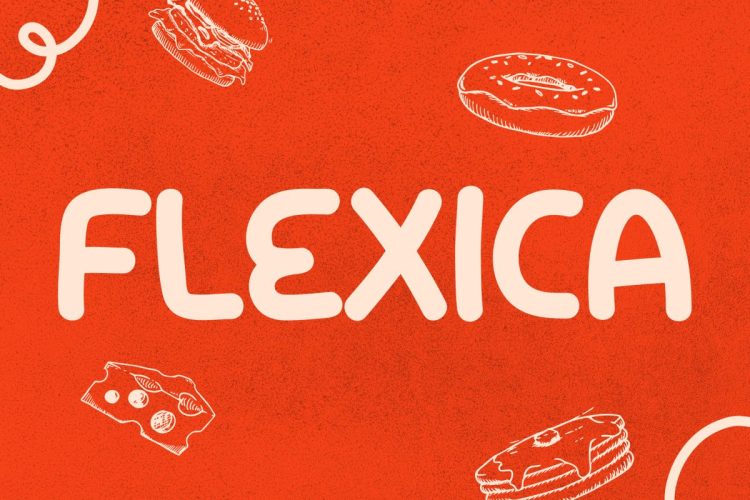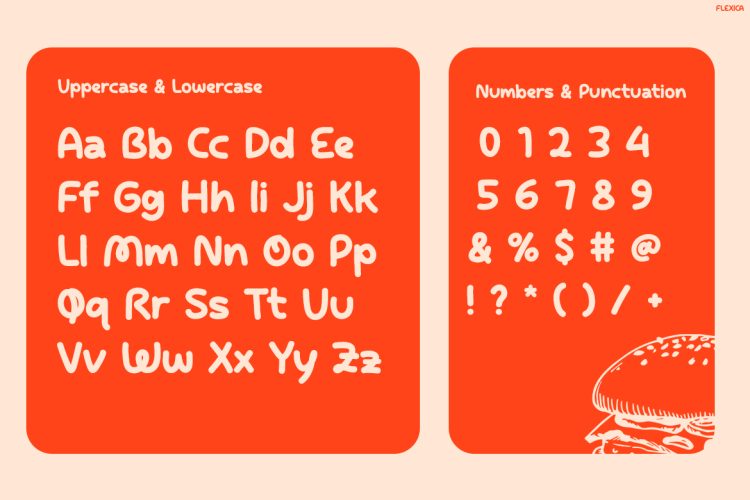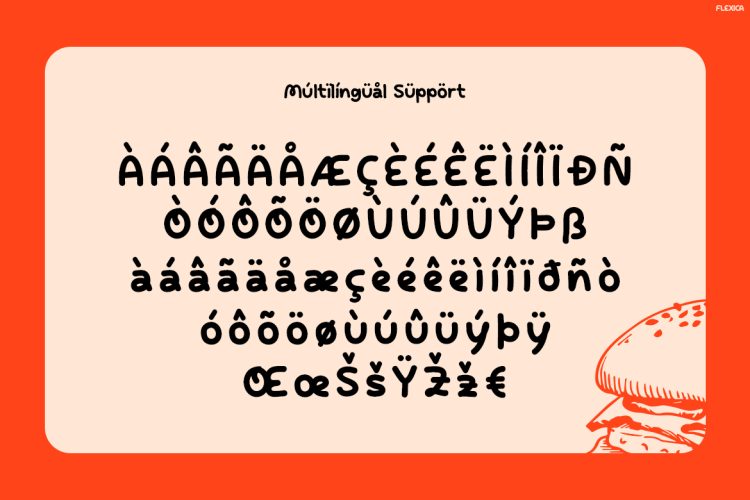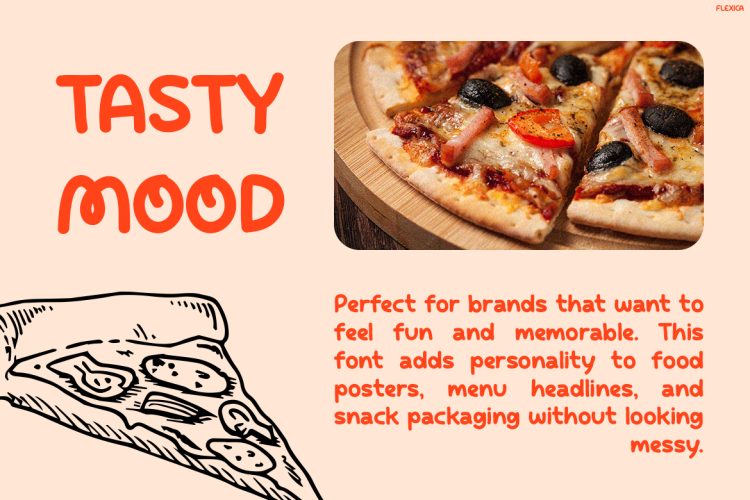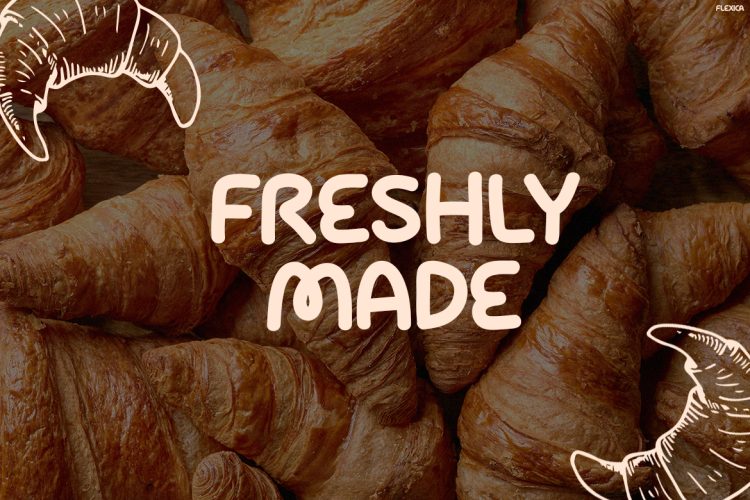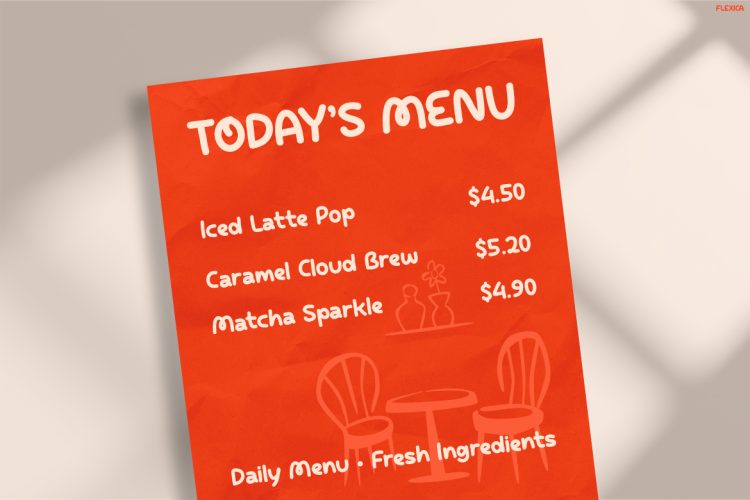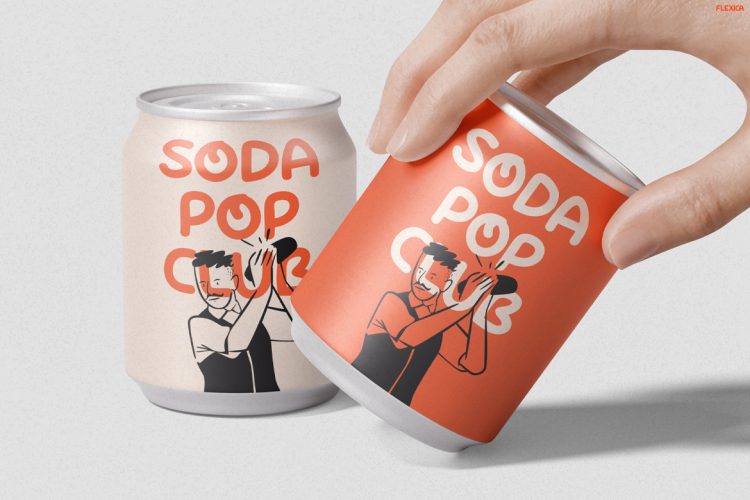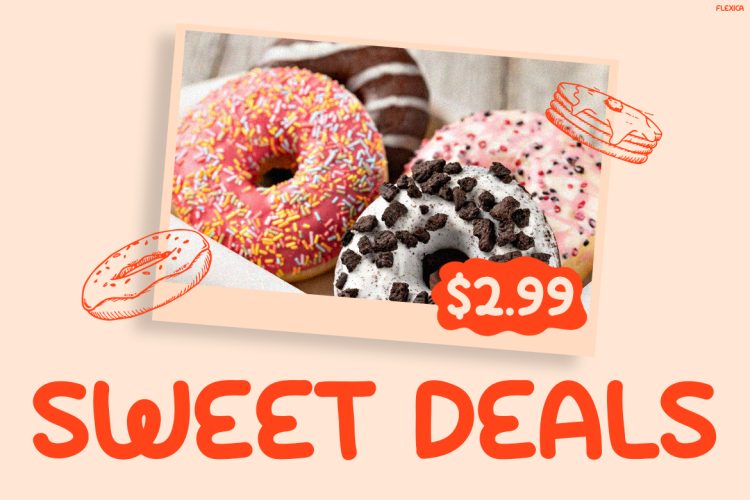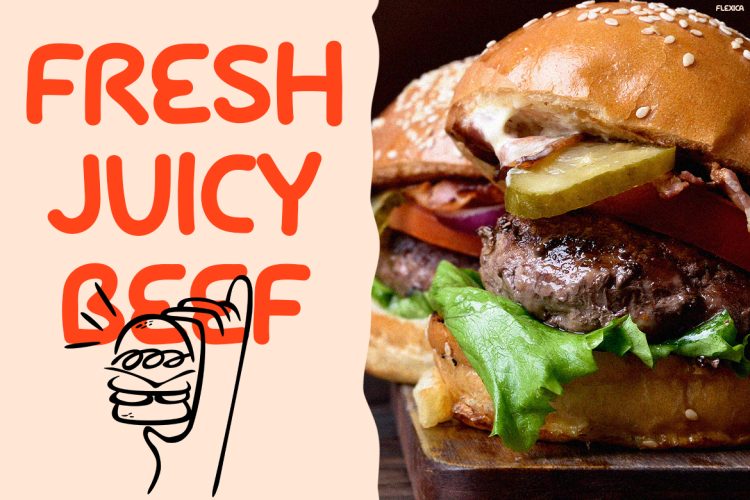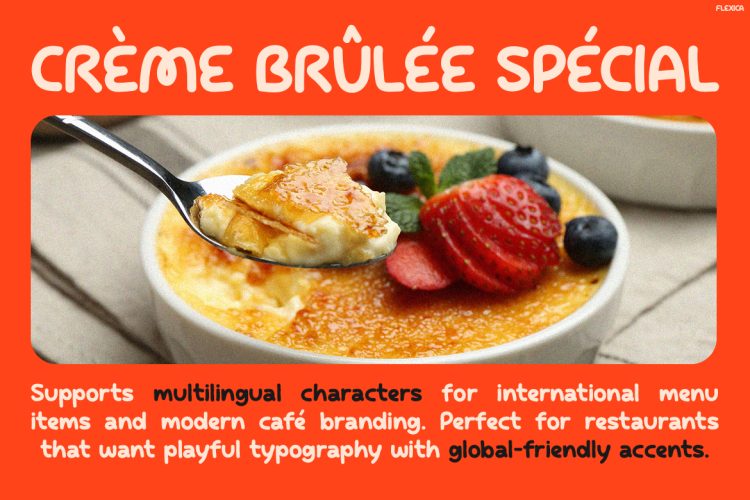
Kids Font Flexica โ Playful Food Display Font with Bold Personality
Kids Font Flexica instantly grabs attention with its chunky, hand-drawn curves and cheerful energy. Moreover, the letterforms feel organic and slightly bouncy, so every word looks friendly and inviting. In addition, its soft edges and bold presence create a perfect balance between readability and fun. As a result, this font stands out in vibrant layouts, especially for food branding, menus, packaging, and social media visuals. Even better, it supports 67 languages, therefore making it highly versatile for global creative projects.
Kids Font Flexica brings a warm, delicious vibe into every design. For example, from โTasty Moodโ posters to โFreshly Madeโ bakery visuals, it enhances appetizing imagery with a playful tone. Furthermore, its strong visual weight ensures your message stays clear across both digital and print media. Not only that, but it also performs consistently in headlines and short phrases, making your design more impactful and engaging.
Therefore, this font is ideal for food brands, cafรฉ owners, snack packaging designers, and kids-related products. Additionally, it works perfectly for content creators who want eye-catching Instagram posts, menu boards, or promotional banners. In other words, anyone aiming for a fun, fresh, and modern look will benefit from using this font.